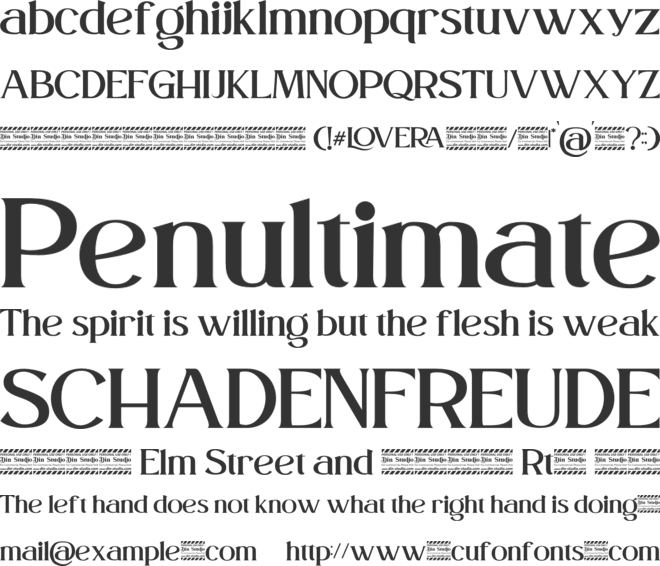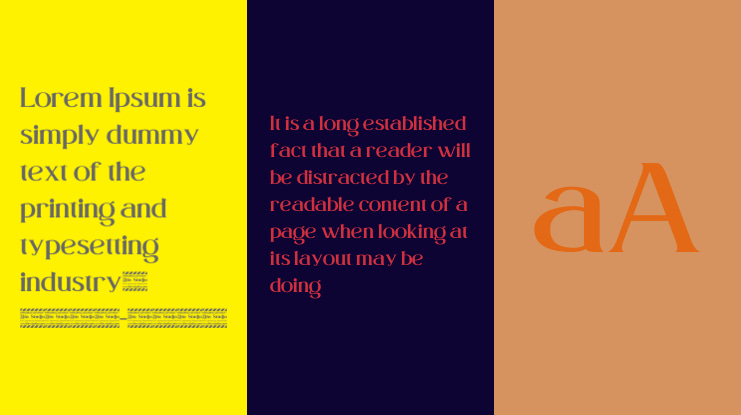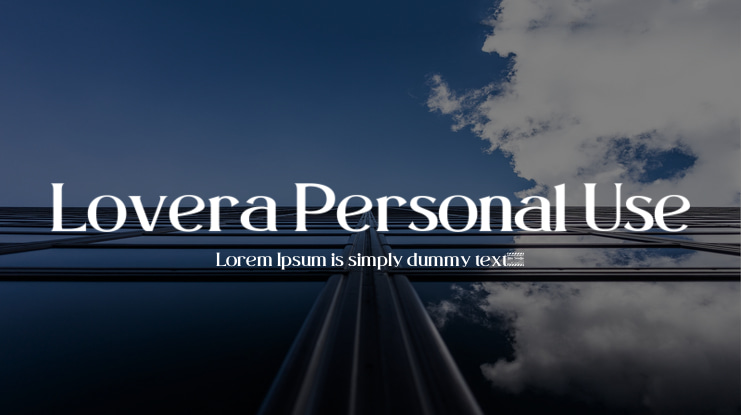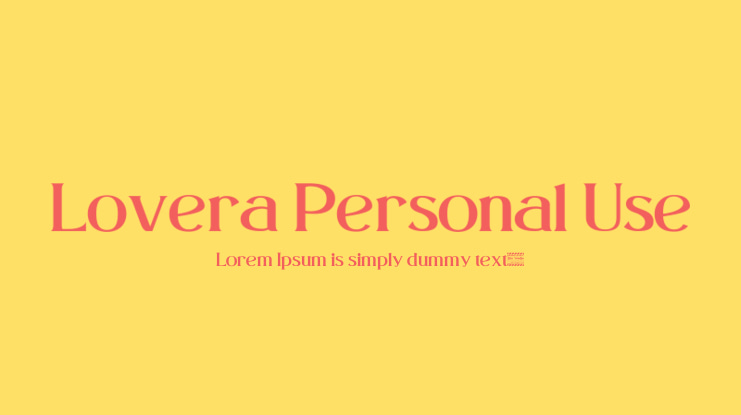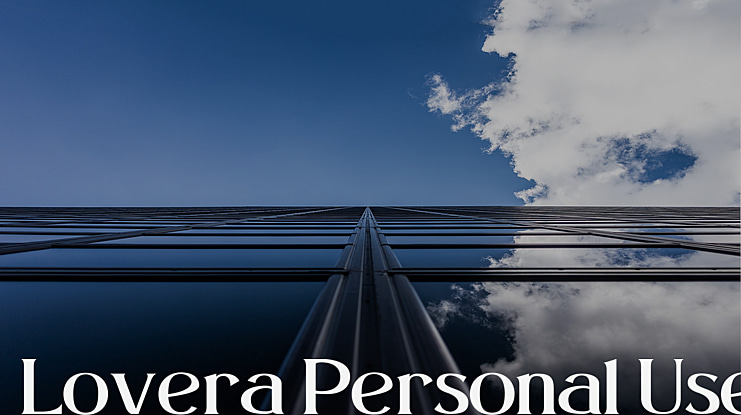
Lovera is elegant serif font. Made for any professional project branding. It is the best for branding, printing, wedding and quotes. Every letter has a unique and beautiful touch.